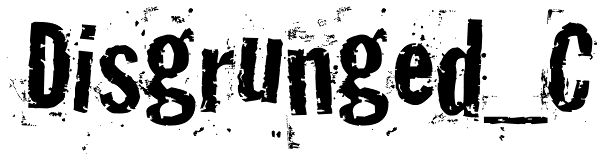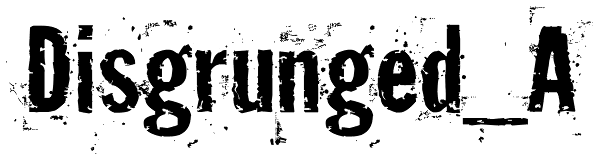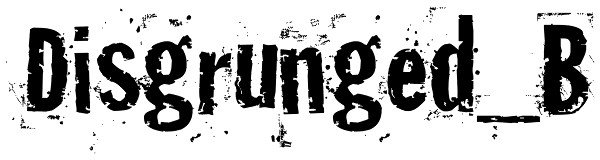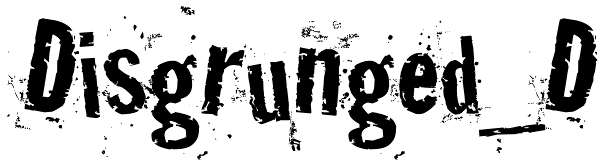
Disgrunged ABCD
Disgrunged is a distressed grunge font, as you might guess, and industrial sans-serif in feel. The Disgrunged ABCD family resembles bad printing with rubber stamps, with corners showing, along with misprinted letters, and the typeface has four...
Disgrunged_C
Disgrunged_A
Disgrunged_B
Disgrunged_D